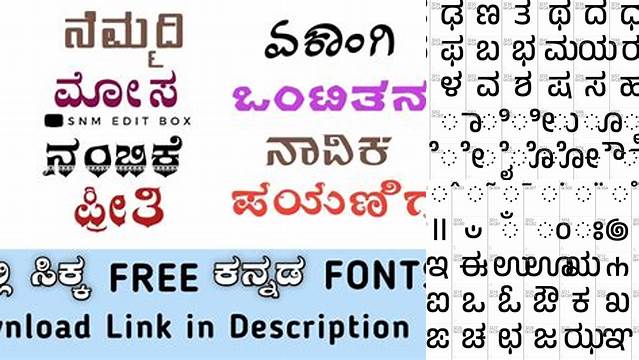
Kannada Fonts: Free Downloads & Styles Online
Introduction to Kannada Fonts
Hey guys! Let's dive into the world of Kannada fonts. Kannada, a beautiful Dravidian language spoken predominantly in the state of Karnataka in India, boasts a rich literary and cultural heritage. Naturally, the need for diverse and aesthetically pleasing Kannada fonts is ever-present. Whether you are designing a website, creating marketing materials, or working on a personal project, having the right Kannada fonts can make all the difference. In this article, we'll explore where you can find Kannada font styles online, download them for free, and even get them in PDF format. We will also delve into the different types of Kannada fonts available, from traditional to modern, and how to choose the perfect one for your needs. So, buckle up and get ready to enhance your Kannada typography game!
Where to Find Free Kannada Fonts Online
Finding free Kannada fonts online can feel like searching for a needle in a haystack. But don't worry; several reliable resources offer a wide variety of options. Websites specializing in free fonts often have a dedicated section for regional languages, including Kannada. Some popular platforms include Google Fonts, FontSpace, and Dafont. Google Fonts, for instance, provides a selection of open-source Kannada fonts that are not only free but also optimized for web use. These fonts are easy to embed in your website and come with different weights and styles. Other font repositories might require you to create an account or attribute the font designer, so always read the licensing terms carefully. Additionally, keep an eye out for font bundles or special promotions where designers offer their Kannada fonts for free for a limited time. By exploring these avenues, you can build a comprehensive collection of Kannada fonts without spending a dime.
Exploring Different Kannada Font Styles
The world of Kannada font styles is vast and varied, offering a font for every conceivable design need. From traditional scripts that evoke a sense of history and culture to modern, sleek designs that exude contemporary flair, the options are endless. Traditional Kannada fonts often feature intricate details and ornate letterforms, making them ideal for formal documents, invitations, and religious texts. Modern Kannada fonts, on the other hand, tend to be more minimalist and geometric, perfect for websites, logos, and marketing materials. You can also find decorative Kannada fonts that incorporate unique design elements, such as swashes, serifs, and calligraphic flourishes. When choosing a Kannada font, consider the overall tone and purpose of your project. A playful, whimsical font might be great for a children's book, while a serious, authoritative font would be more appropriate for a legal document. By understanding the nuances of different Kannada font styles, you can make informed decisions that enhance the visual appeal and readability of your work. Experiment with different Kannada font styles to discover the perfect match for your creative vision.
Traditional Kannada Font Styles
Traditional Kannada font styles are deeply rooted in the history and culture of Karnataka. These fonts often reflect the classical forms of the Kannada script, characterized by their elegant curves, intricate details, and a sense of timelessness. When you think of traditional Kannada fonts, you might imagine the script used in ancient inscriptions, religious texts, and historical documents. These fonts tend to have a more ornate and calligraphic feel, making them ideal for projects that aim to evoke a sense of heritage and authenticity. Designers often use traditional Kannada fonts for wedding invitations, cultural event posters, and book covers that deal with historical themes. Some popular traditional Kannada fonts include variations of the Old Kannada script, which hark back to the earliest forms of the language. While they may not be as versatile as modern fonts for everyday use, traditional Kannada fonts add a touch of sophistication and reverence to any design. Embracing traditional Kannada font styles is a way to connect with the rich literary and artistic traditions of the region.
Modern Kannada Font Styles
In contrast to their traditional counterparts, modern Kannada font styles embrace simplicity, clarity, and contemporary aesthetics. These fonts are designed to be highly readable and versatile, making them suitable for a wide range of applications, from websites and mobile apps to print materials and digital publications. Modern Kannada fonts often feature clean lines, geometric shapes, and a minimalist design that prioritizes legibility. They are perfect for projects that require a sleek, professional, and up-to-date look. Designers often choose modern Kannada fonts for logos, branding materials, and user interfaces, where clarity and visual appeal are paramount. Some popular modern Kannada fonts include sans-serif variations that offer a clean and uncluttered appearance. These fonts are particularly well-suited for digital environments, where screen resolution and readability are important considerations. Embracing modern Kannada font styles allows you to create designs that are both functional and visually appealing, reflecting the dynamism and innovation of contemporary Kannada culture.
Bold Kannada Font Styles
Bold Kannada font styles are essential for emphasizing key words, headings, and important information in your designs. The increased weight of bold Kannada fonts makes them stand out from the surrounding text, drawing the reader's attention and creating visual hierarchy. Bold Kannada fonts are particularly useful in titles, subheadings, and call-to-action buttons, where you want to make a strong impact. When choosing a bold Kannada font, it's important to ensure that it complements the overall design and doesn't overwhelm the page. A well-chosen bold font can add depth and dimension to your typography, making it more engaging and readable. Designers often use bold Kannada fonts to highlight important data points in reports, emphasize key messages in advertisements, and create visually appealing presentations. Whether you're designing a website, creating a poster, or writing a document, incorporating bold Kannada font styles can significantly enhance the clarity and impact of your communication. Using bold Kannada fonts correctly can guide the reader and ensure that the most critical information is easily noticed.
Italic Kannada Font Styles
Italic Kannada font styles offer a subtle yet effective way to add emphasis and visual interest to your text. Unlike bold fonts, which increase the weight of the letters, italic Kannada fonts slant the characters to the right, creating a distinctive and elegant appearance. Italic Kannada fonts are often used to indicate quotes, book titles, and foreign words, as well as to add a touch of sophistication to your typography. When used sparingly, italic Kannada fonts can draw the reader's eye and highlight important details without being overly assertive. Designers often incorporate italic Kannada fonts into body text to create a more dynamic and engaging reading experience. They are also useful for adding a touch of elegance to invitations, announcements, and other formal documents. Choosing the right italic Kannada font is crucial for maintaining readability and visual harmony. A well-designed italic font should complement the regular font and enhance the overall aesthetic appeal of your design. Employing italic Kannada font styles judiciously can elevate the sophistication and readability of your work.
Light Kannada Font Styles
Light Kannada font styles are characterized by their delicate and airy appearance, making them perfect for creating a sense of elegance and sophistication in your designs. These fonts have a thinner stroke weight than regular fonts, giving them a more subtle and refined look. Light Kannada fonts are often used in minimalist designs, where the goal is to create a clean and uncluttered aesthetic. They are particularly well-suited for headings, subheadings, and body text in magazines, brochures, and websites. Designers often choose light Kannada fonts to create a sense of lightness and openness, making the text feel less dense and more inviting. However, it's important to use light Kannada fonts carefully, as they can be difficult to read if the font size is too small or the contrast with the background is too low. A well-chosen light font can add a touch of sophistication to your typography, but it's essential to ensure that it remains legible and accessible. When employing light Kannada font styles, consider the overall design context and prioritize readability to achieve the desired effect.
Best Kannada Fonts for Web Design
When it comes to Kannada fonts for web design, readability and performance are key considerations. The fonts you choose should be easy to read on screens of various sizes and resolutions, and they should load quickly to avoid slowing down your website. Best Kannada fonts for web design are often those that are optimized for web use, such as those available through Google Fonts. These fonts are designed to render well on different browsers and devices, and they are typically available in multiple weights and styles. Designers often prefer Kannada fonts with clean, simple designs for web use, as they tend to be more legible and less distracting. Sans-serif fonts are particularly popular for body text, while serif fonts can be used for headings and subheadings to add a touch of elegance. It's also important to consider the overall design of your website and choose Kannada fonts that complement the color scheme, layout, and branding. By selecting the best Kannada fonts for your web design, you can create a visually appealing and user-friendly experience for your visitors.
Resources for Learning Kannada Typography
Resources for learning Kannada typography are plentiful and can help you enhance your skills and knowledge in this specialized area. Understanding the nuances of Kannada typography is essential for creating visually appealing and effective designs that resonate with the Kannada-speaking audience. There are numerous online courses, tutorials, and workshops that cover the basics of Kannada typography, including font selection, layout design, and typesetting techniques. These resources often provide hands-on exercises and real-world examples to help you apply your knowledge. In addition to online resources, there are also books, articles, and blogs that delve into the history, theory, and practice of Kannada typography. Consider joining online communities and forums where you can connect with other designers, share your work, and ask questions. By taking advantage of the available resources, you can deepen your understanding of Kannada typography and create designs that are both beautiful and functional.